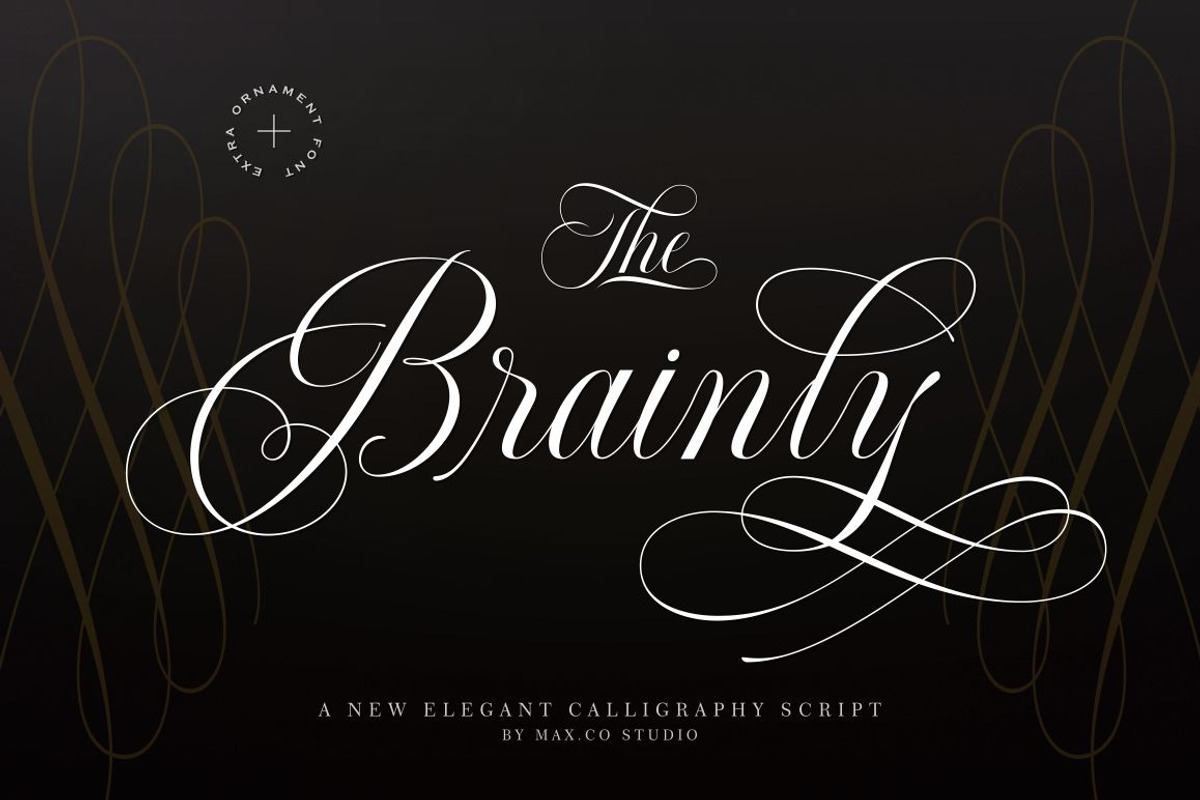
Brainly Script Extra Ornament Free Download
Brainly Script Extra Ornament Font Free Download is a beautifully handcrafted script typeface that combines expressive elegance with decorative flair. Please note, you are required to purchase this font for commercial use. It is available for free download for testing and personal projects only.
With its flowing calligraphic strokes and included ornamental extras, Brainly Script is perfect for wedding invitations, logo designs, product packaging, social media posts, and romantic branding. The swashes and flourishes add a luxurious, custom look that elevates every letter into a work of art.